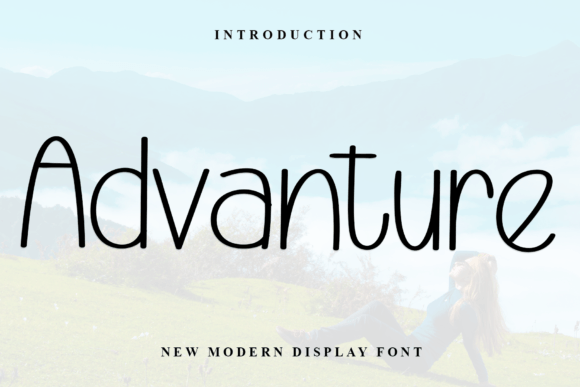
The Designer’s Delight: Unpacking the Elegance of Advanture Font
I’ll never forget the moment I stumbled upon Advanture Font while working on a wedding invitation project. My client had a clear vision of a sophisticated, yet modern design, and I was on a mission to find the perfect font to bring it to life. As I scrolled through my font library, Advanture caught my eye, and I knew I had found the one. In this article, I’ll share my experience with Advanture Font, its features, and how to make the most of it in your designs.
- ✨ Elegant and refined handwritten style: Advanture Font boasts a classy, elegant, and modern look that’s perfect for high-end designs.
- 💫 Versatile and multifaceted: Advanture Font can be used for logos, branding, invitations, stationery, wedding designs, social media posts, and more.
While Advanture Font is an excellent choice, there are a few minor considerations to keep in mind:
- ⚠️ Some characters may require manual kerning: As with any font, you may need to adjust the kerning of certain characters to achieve optimal results.
- 🤔 Limited availability of language support: Advanture Font may not support all languages, so be sure to check the font’s specifications before use.
A Practical Guide: Using Advanture Font in Your Designs
The Story Behind Advanture Font
Advanture Font was designed with the intention of creating a beautiful, refined handwritten font that exudes elegance and sophistication. The designer aimed to craft a font that would be versatile and multifaceted, suitable for a wide range of design applications. With its PUA encoding and extensive glyph library, Advanture Font has become a popular choice among designers and crafters.
Q: Is Advanture Font suitable for body text?
A: While Advanture Font is an elegant and refined font, it’s better suited for headings, titles, and short paragraphs. For body text, a clearer font may be more suitable.